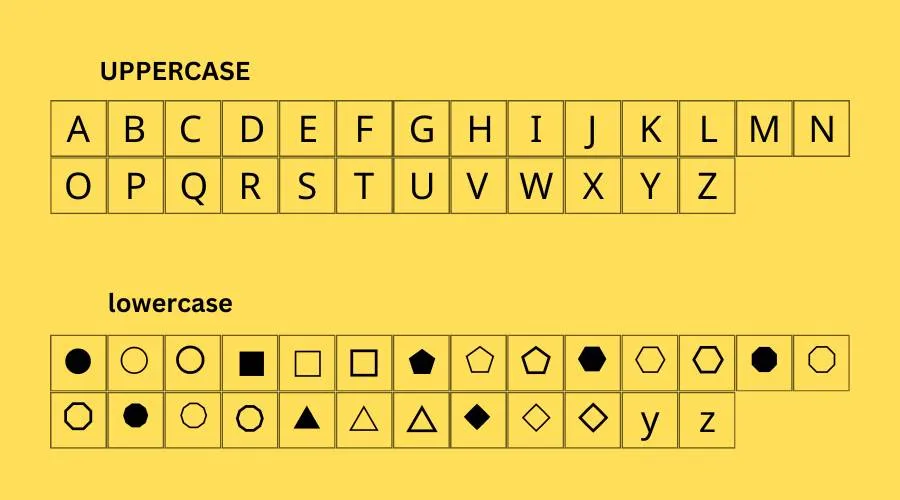
About We Simple Shapes Font
The We Simple Shapes Font is a famous typeface all around the world and is the perfect choice for all your fun purposes, and tasks. This Font was developed by Kimberly Geswein and is under the category of the dingbats texture family.
This font has an online generator tool, in which you can easily change your normal type of characters into stylish and modern texture shapes. It is the perfect choice for adobe photoshop, and CSS.